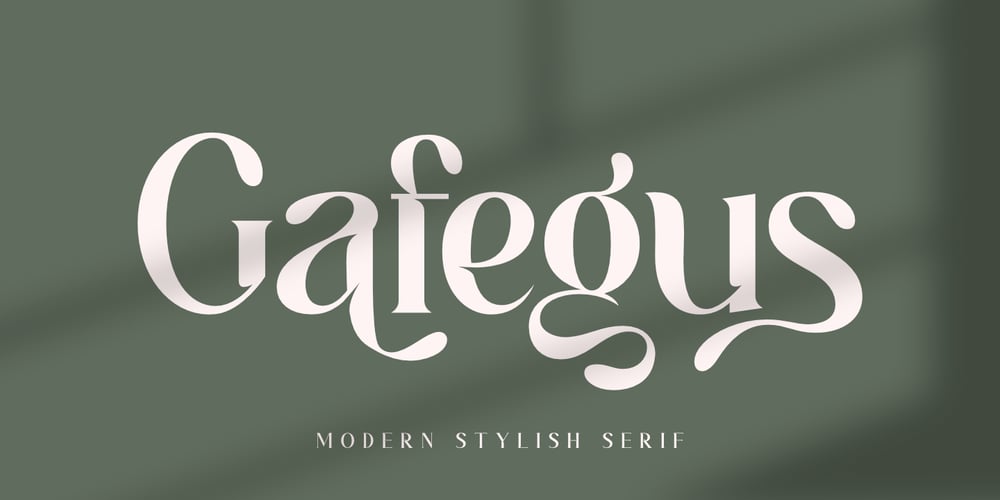
Gafegus Font Family was designed by Saiful Anwar and published by Sealoung. Gafegus contains 1 styles and family package options. Introducing the new classy Modern style Serif!!! Gafegus is a modern, elegant and classy serif typeface, best used for displaying titles, logos, branding, magazines, product packaging and invitations. Gafegus has unique alternates and ligatures, all of which can be accessed by the OpenType control or directly from the Character or Glyphs window. This font is PUA encoded so you can use additional glyphs in most graphic design software